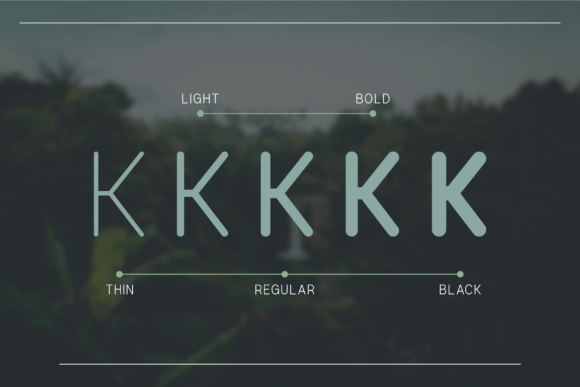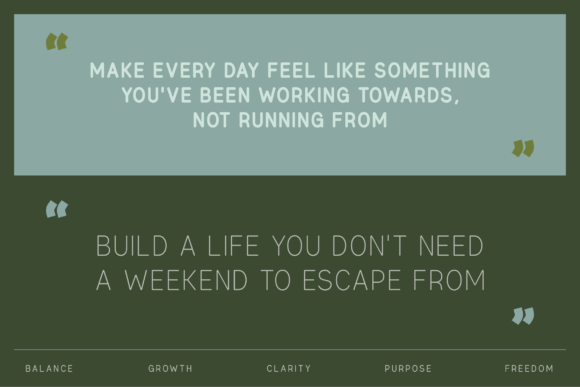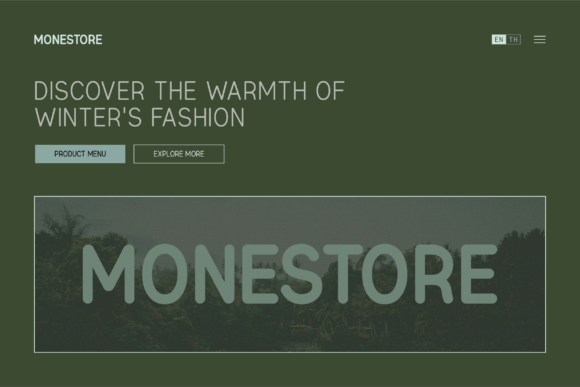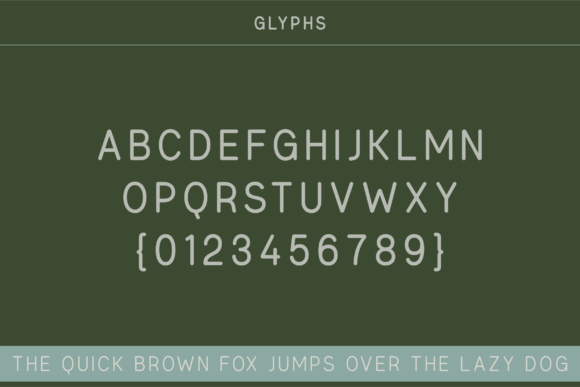
Introduction to Rationalized Rounded Font
As you sit in front of your computer, brainstorming ideas for your next creative project, the blank canvas stares back at you, waiting for inspiration to strike. You know exactly what you want: a font that exudes confidence, warmth, and a dash of modernity. A font that can elevate your designs, make your brand stand out, and connect with your audience on a deeper level.
Enter the Rationalized Rounded Font, a game-changing all-caps sans serif font family designed to bring clarity, warmth, and bold personality to your creative projects. With its soft-rounded edges and sleek, geometric construction, this high-quality font is both highly legible and aesthetically balanced. Whether you’re looking for a free download or a premium design resource, Rationalized Rounded Font adapts beautifully to your needs, offering five versatile weights to suit any project.
Key Features of Rationalized Rounded Font
- Unique blend of modern and classic design elements, perfect for creative projects requiring a touch of sophistication.
- Rationalized Rounded Font is a versatile design resource, ideal for a wide range of creative projects, from branding and advertising to editorial and educational content.
- Includes a comprehensive character set, covering a broad range of languages and alphabets, making it an excellent choice for international and multicultural projects.
Honest Review: Rationalized Rounded Font
I recently stumbled upon the Rationalized Rounded Font and was excited to give it a try for my current design project. As a designer, I’m always on the lookout for high-quality fonts that can elevate my creative work.
Here are some of the things that I like about this font:
- ✨ High-quality design that’s perfect for professional projects
- ✨ Easy to read and understand, even in smaller font sizes
- ⚠️ Limited font sizes and styles available for download
- ⚠️ May not be suitable for projects that require extreme font customizability
Overall, I’m quite impressed with the Rationalized Rounded Font. It’s a great addition to any designer’s toolkit, and I would definitely recommend it for any creative project that requires a high-quality, rounded font. Just be aware of the limitations mentioned above, and you’ll be good to go!
Use Rationalized Rounded Font in creative projects such as logo design, infographics, and social media graphics. Experiment with different font sizes, colors, and styles to create a unique and eye-catching design. You can also use the font in combination with other design resources to create a high-quality design project.
Rationalized Rounded Font is ideal for use in creative projects such as: